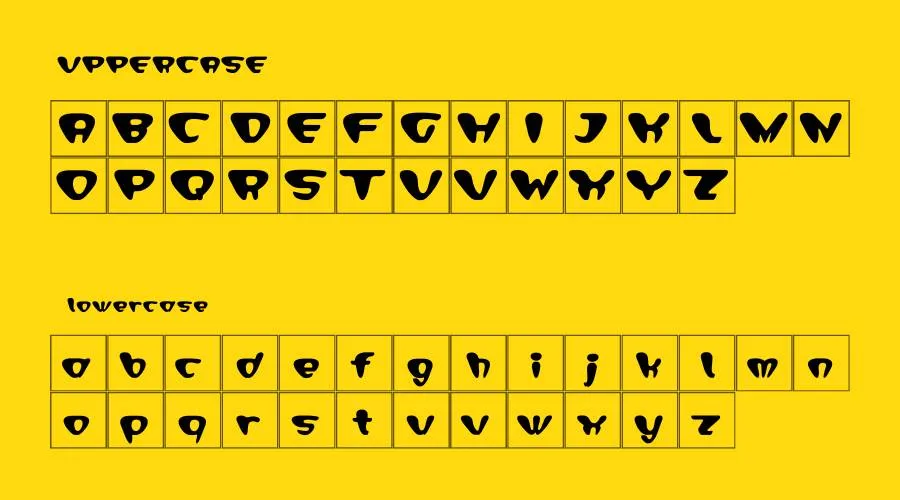
Daihead Font
About Daihead Font
The Daihead Font is a famous display texture family developed by a well-known typographic designer named Gaia Planet. It is available in the free version and the subfamily of this typeface is bold. This font is perfect for CSS and adobe photoshop.
It is the perfect choice for all your fun purposes and methods, with a unique type of styles and bold shapes. This font includes different types of characters such as uppercase letters, digits, numerals, and many other special structures of the alphabet set.